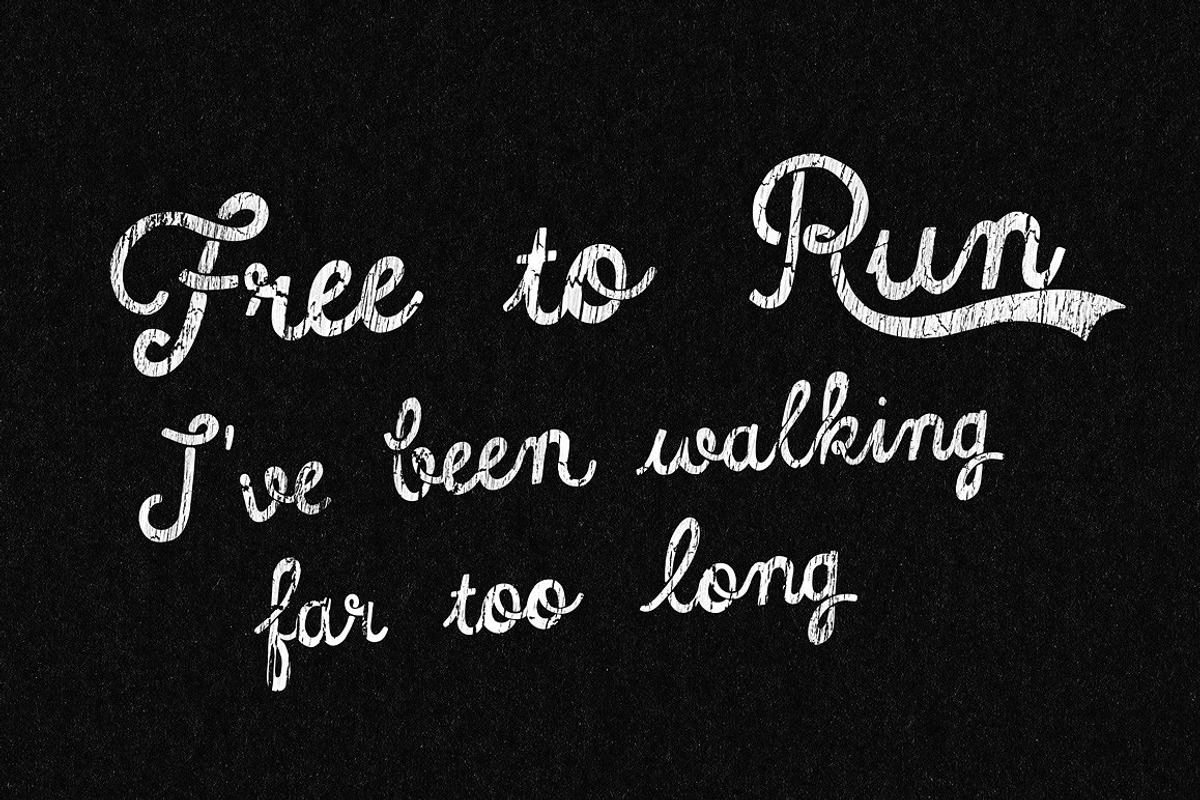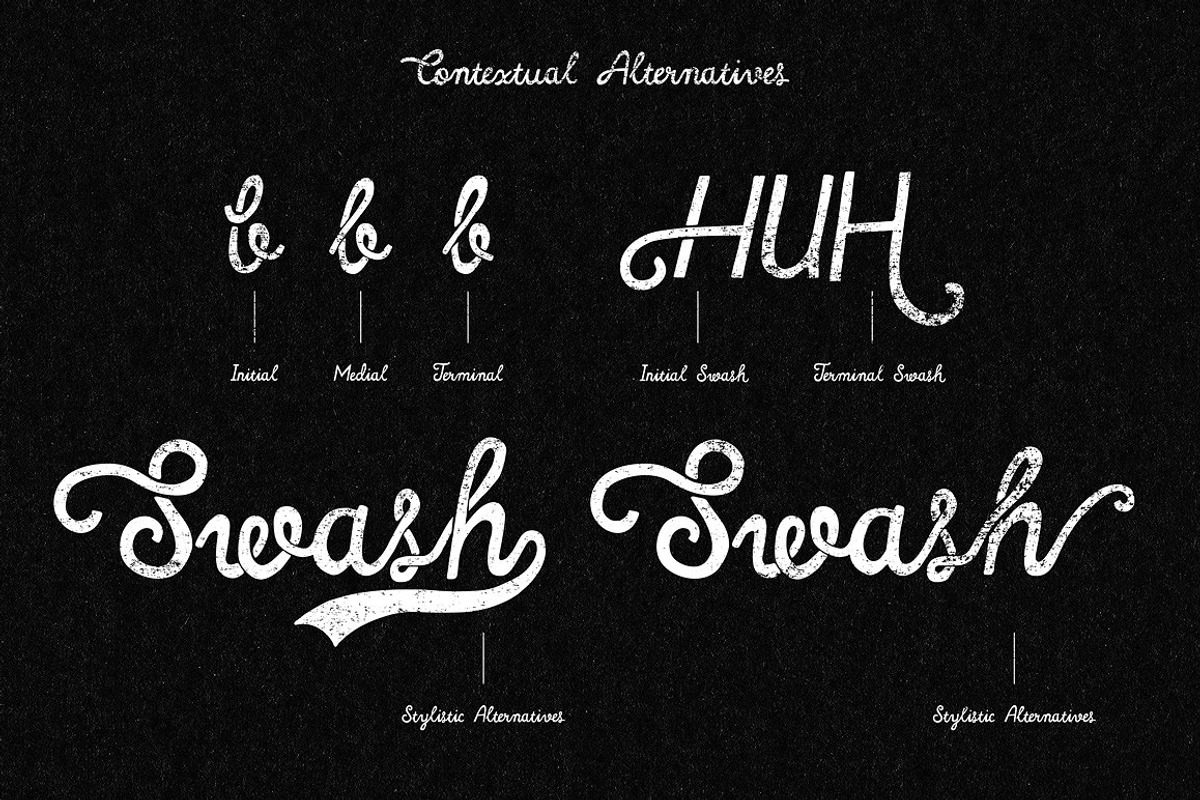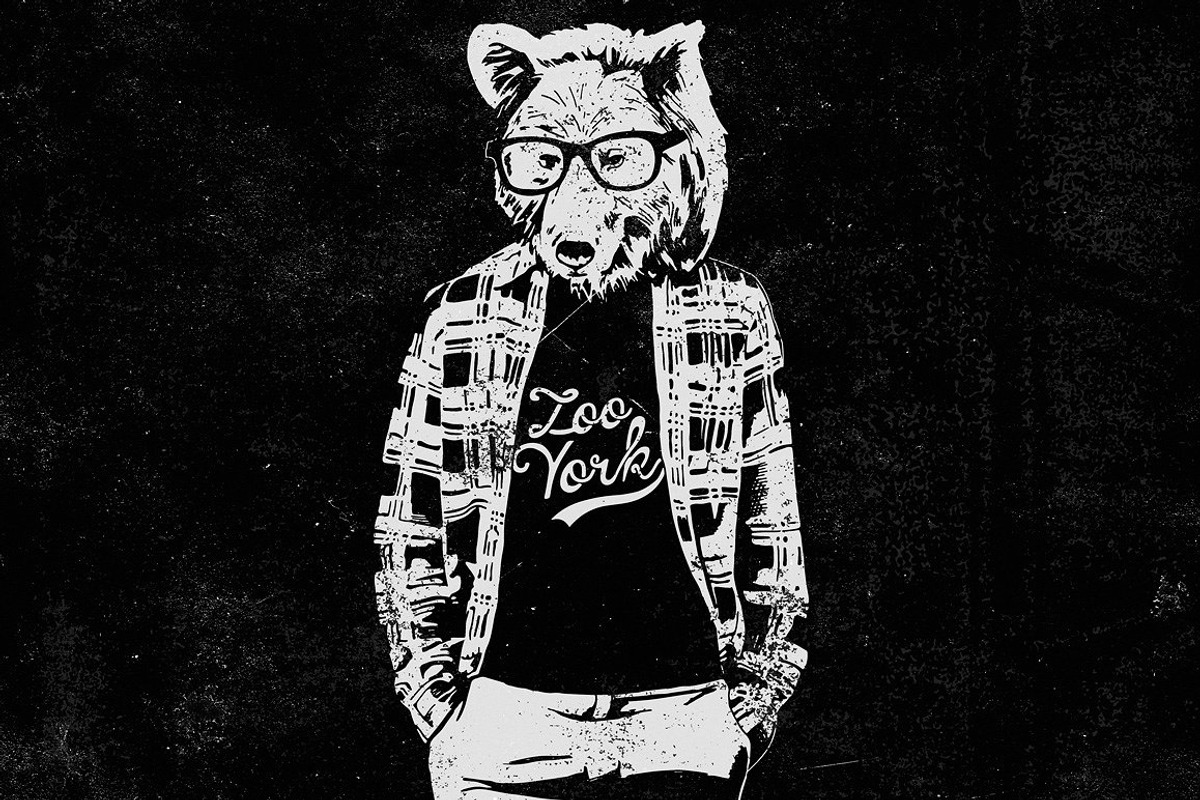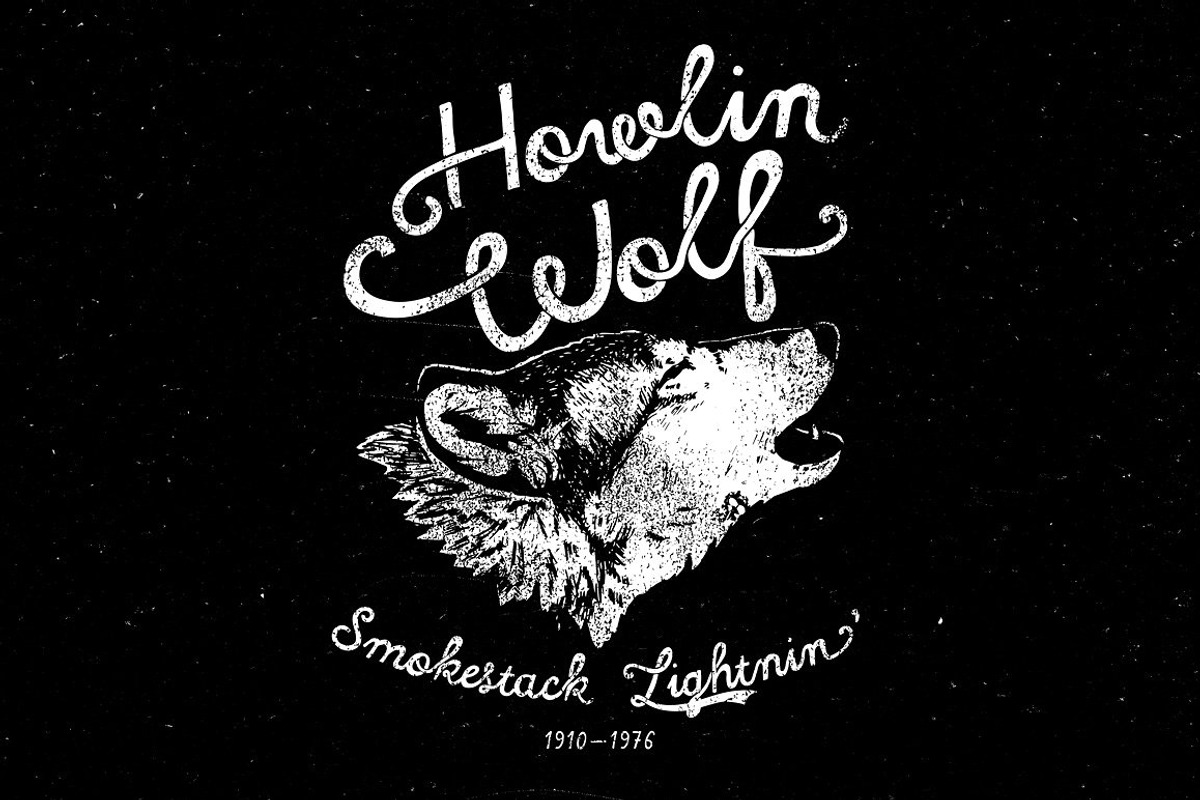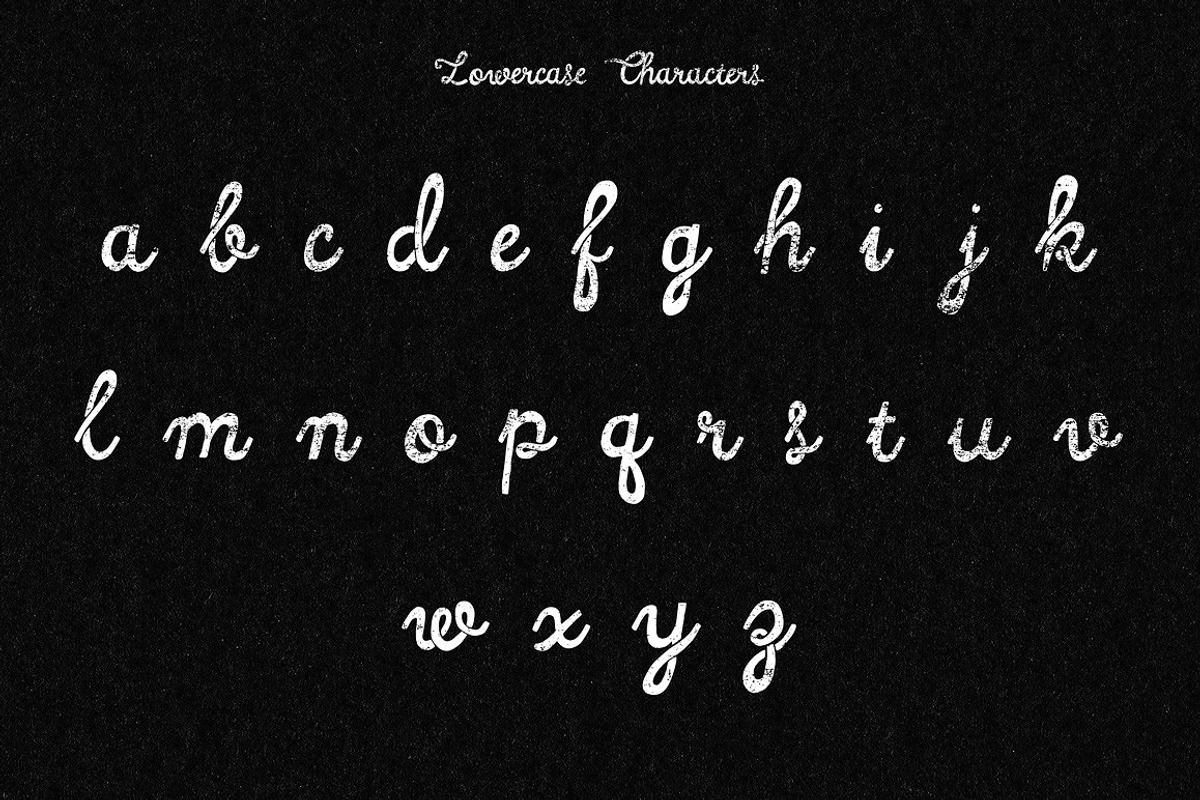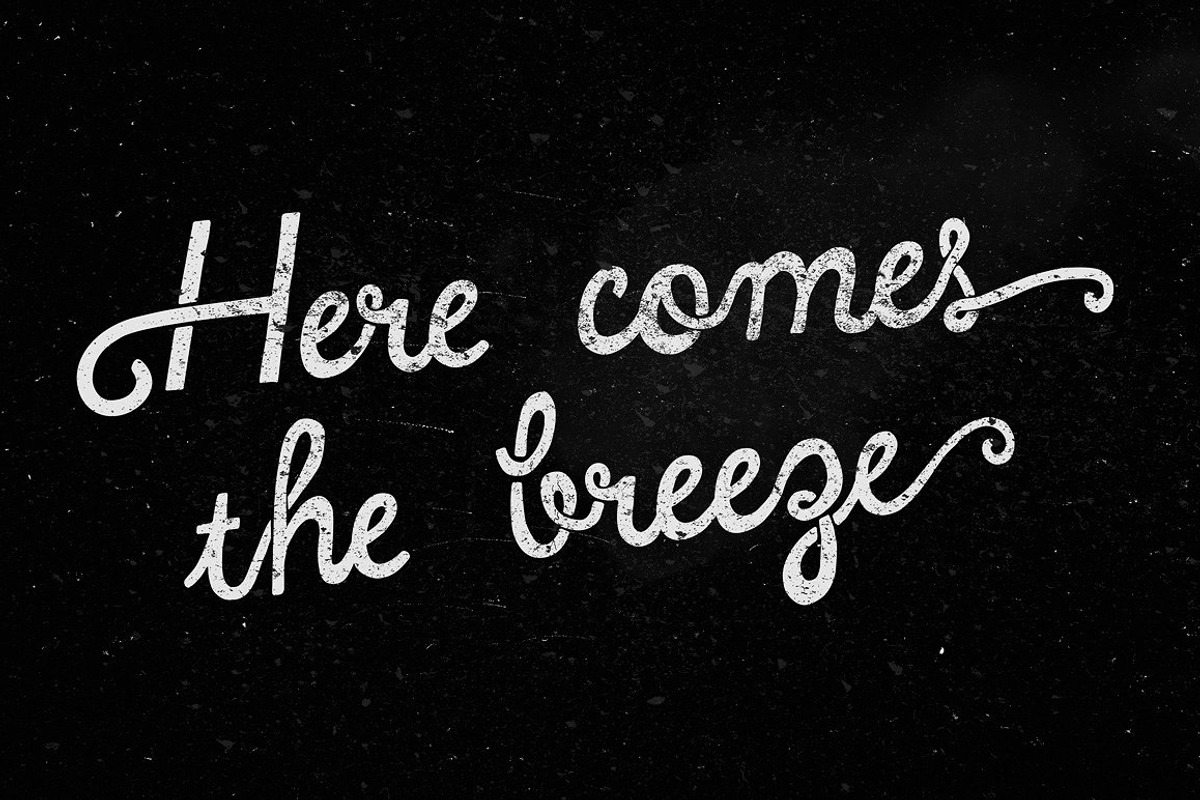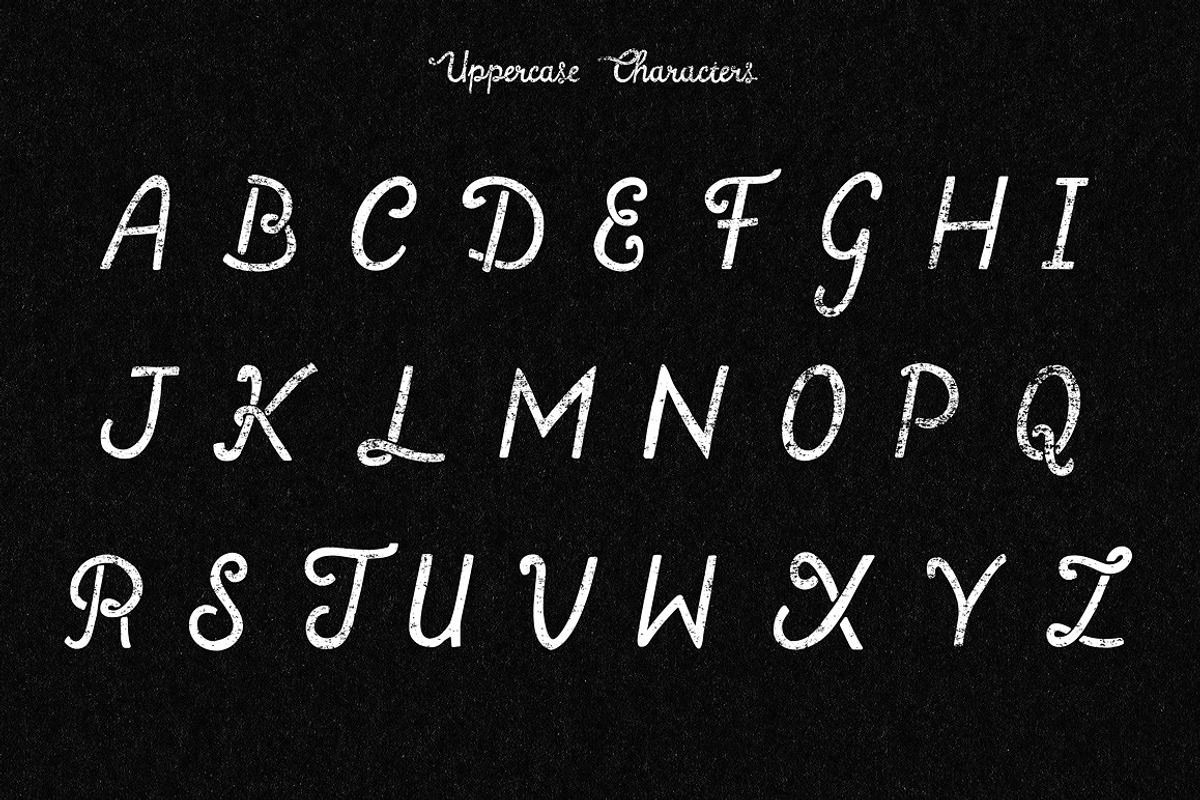
Roadhouse blues font By Simon Stratford I design things for a living check out my work
Roadhouse blues font By Simon Stratford I design things for a living check out my work by Itsmesimon is a font selected for branding, posters, packaging, typography.
- The lowercase glyphs have 3 contextual alternatives.
- The uppercase letters have a start and end swash that are also automatically changed if you enable swashes.
Why Roadhouse blues font By Simon Stratford I design things for a living check out my work is worth a look
Roadhouse blues font By Simon Stratford I design things for a living check out my work by Itsmesimon fits naturally into Branding, posters, packaging, typography.